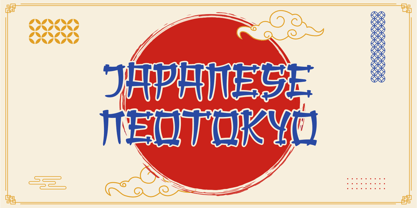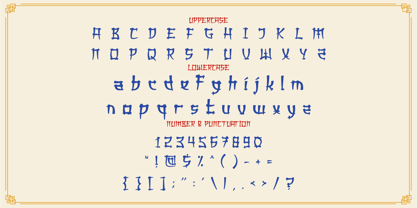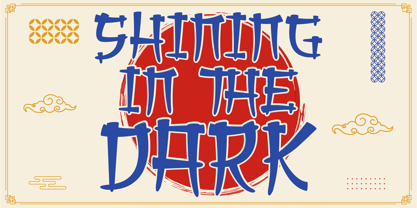
Japanese Neotokyo
by Shanaf
The Japanese Neotokyo Font Family was designed by Yesie Erma Yunita and published by Shanaf. Japanese Neotokyo contains 1 styles. More about this family
Step into a fusion of cultural elegance and neo-futuristic flair with Japanese Neotokyo, a bold display font inspired by the brush artistry of traditional Japanese calligraphy and the modern pulse of Tokyo street visuals. This font captures the spirit of East Asian typographic aesthetics through its dynamic stroke terminals, hand-painted brush textures, and balanced geometric construction. The characters are slightly exaggerated in height and width, creating a dramatic presence that immediately draws the eye—perfect for capturing attention in designs that require cultural authenticity with a modern twist. It includes uppercase, lowercase, numbers, and a full set of punctuation marks, all unified under a uniquely stylized brush theme.
Japanese Neotokyo is ideal for branding, restaurant menus, packaging, signage, posters, merchandise, and event promotions—especially those themed around Japanese culture, sushi bars, anime projects, or Neo-Asia narratives. Whether you're designing a ramen shop flyer or a futuristic cyber-Asia film title, this font delivers a visual voice that is distinctly bold, culturally rooted, and creatively versatile. With its nostalgic nod to heritage and its leap toward neon-lit futures, Japanese Neotokyo is your gateway to expressive design with character.
Designers: Yesie Erma Yunita
Foundry: Shanaf